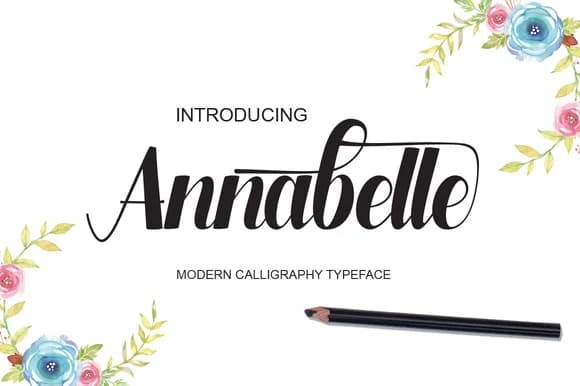
Annabelle Font by Alqawoms is a flowing script typeface designed to bring sophisticated flair to contemporary design work. Its graceful letterforms authentically capture the warmth of hand-lettering while maintaining excellent legibility across various scales, making it equally effective for display-heavy designs and extended text applications. This typeface excels across multiple creative disciplines and design contexts. Wedding invitation suites gain immediate elegance from its romantic, flowing quality, while luxury product packaging benefits from its distinctly artisanal aesthetic and refined character. Boutique fashion and cosmetics brands leverage Annabelle to establish meaningful personal connections with their customer base. DIY crafters particularly appreciate its precision for creating custom vinyl labels, personalized stationery, and monogrammed gift items. The typeface's natural letterform rhythm also strengthens social media branding efforts, where authentic, human-centered fonts foster deeper audience engagement and brand recognition. Whether you're a seasoned design professional or an emerging creative entrepreneur, Annabelle Font offers the handcrafted aesthetic that distinguishes your work without sacrificing refinement or clarity. It adapts seamlessly across diverse applications, from embroidery digitization to custom apparel heat transfers to intimate greeting card collections and beyond. Discover Annabelle Font on Creative Fabrica and begin incorporating this elegant script into your next project.
Annabelle Font is a script font that shines as a display or heading face. Pair it with a clean sans-serif or serif font for body text β the contrast creates a clear hierarchy while the two styles stay balanced and easy to read.
Annabelle Font
by Alqawoms